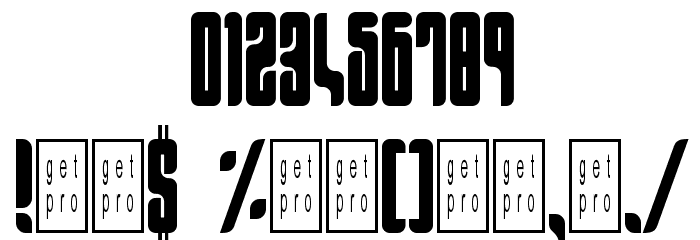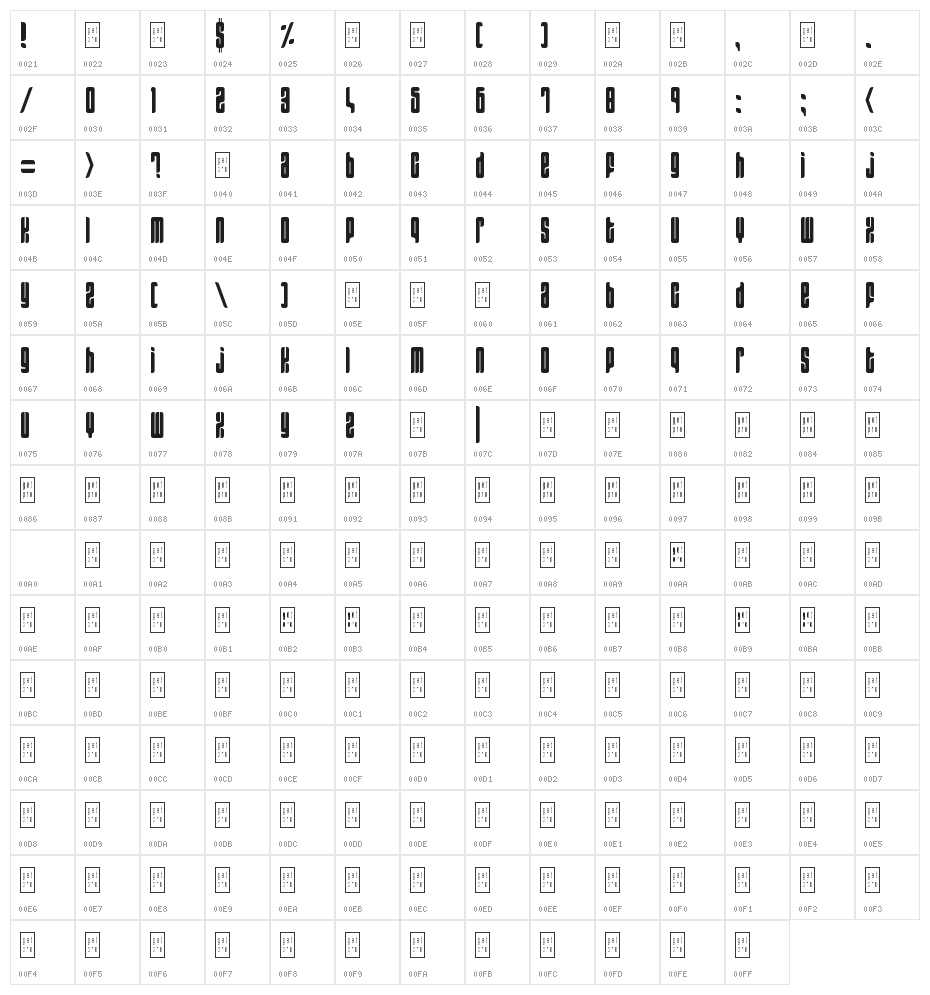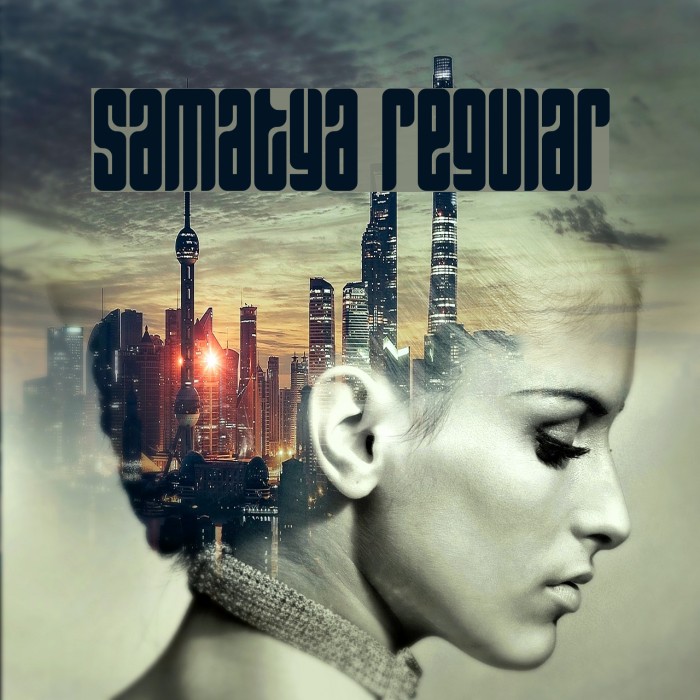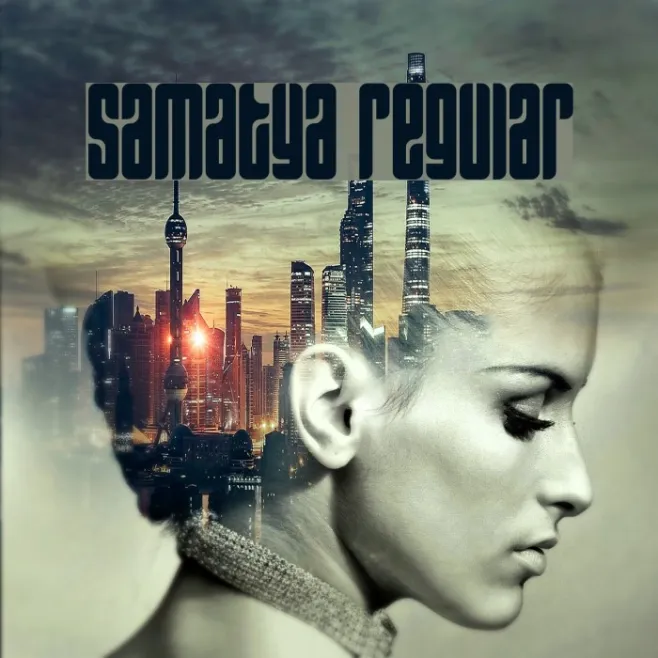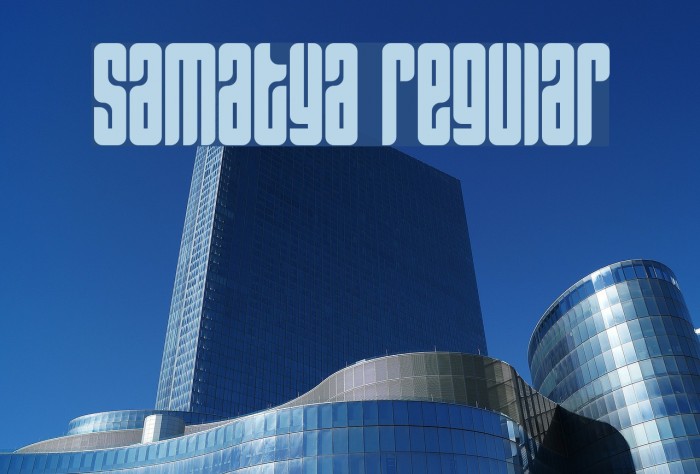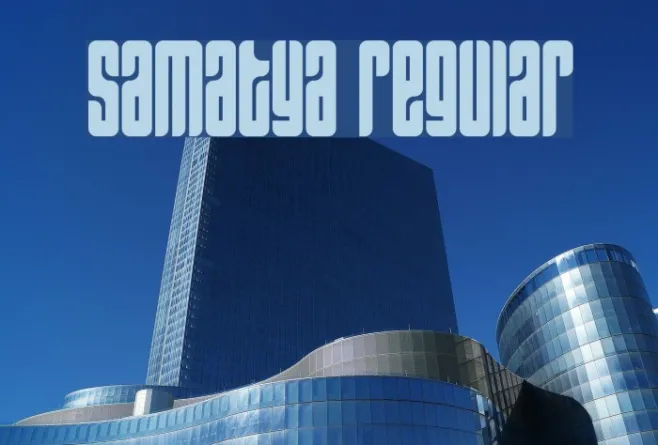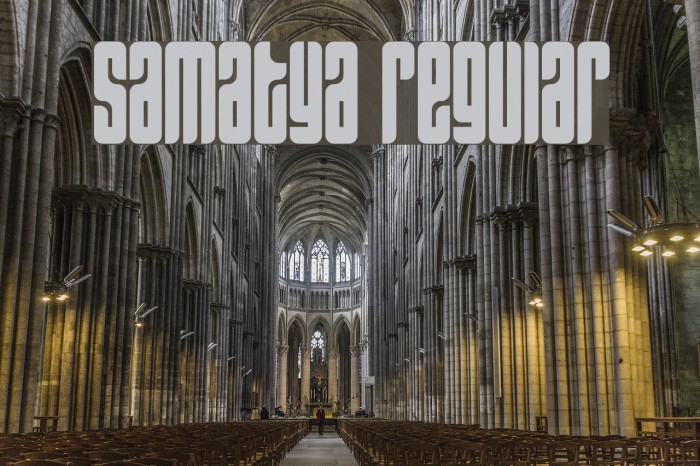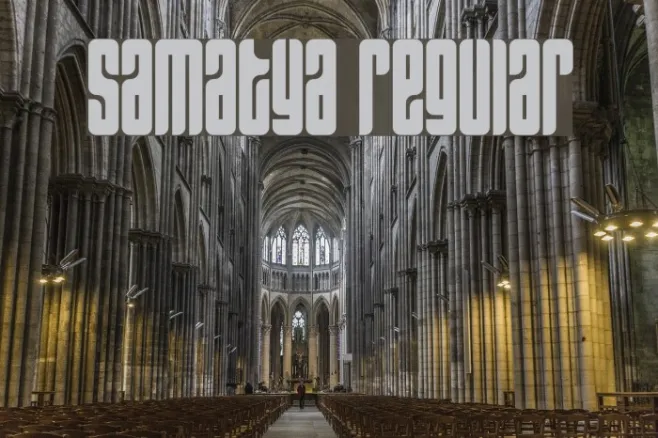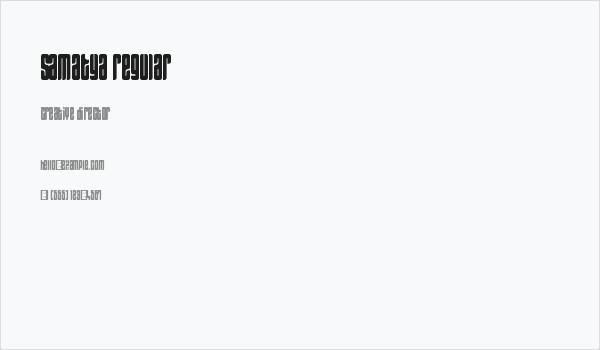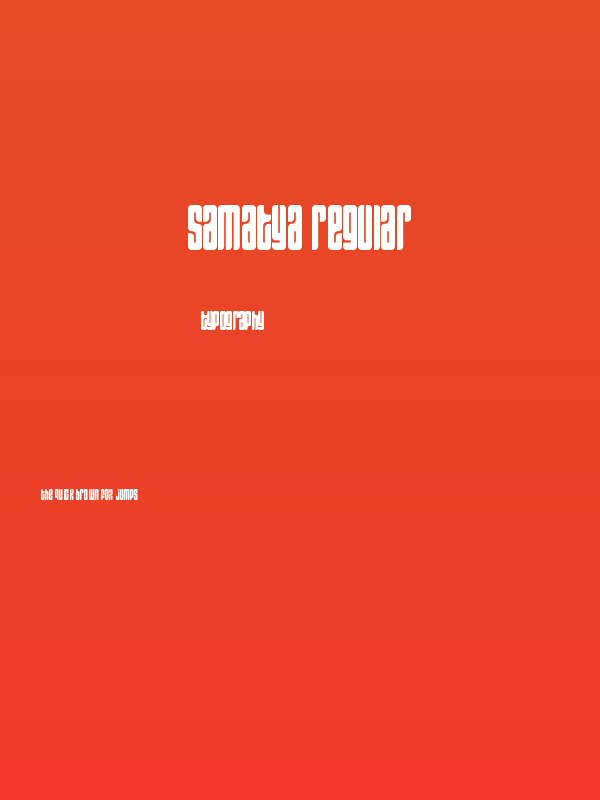
Samatya Regular Font
Samatya Regular Description
This font features a bold and geometric design with a strong presence. The characters are uniformly thick, creating a cohesive and modern look. The rounded edges soften the overall appearance, while the consistent stroke width adds to its boldness. The uppercase and lowercase letters maintain a similar height, enhancing readability and uniformity. The numerals and special characters follow the same design principles, ensuring a harmonious look across all text elements. This font is ideal for making a statement with its striking and contemporary style.
| Proposed Projects | Ideal for branding, posters, headlines, and any project requiring a modern and impactful typeface. |